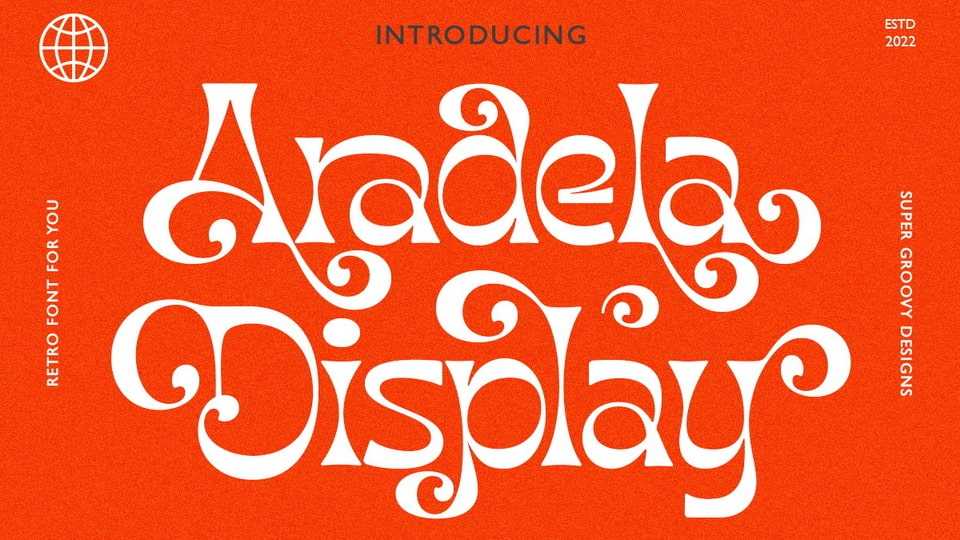
Aradela Display Font › Fontesk – Fonte Grátis
Download Aradela Display font, a psychedelic-style display typeface with unique ornamental characteristics that will set your project apart from the rest. Aradela Display comes with ligatures and alternates, each glyph is designed to create harmony.